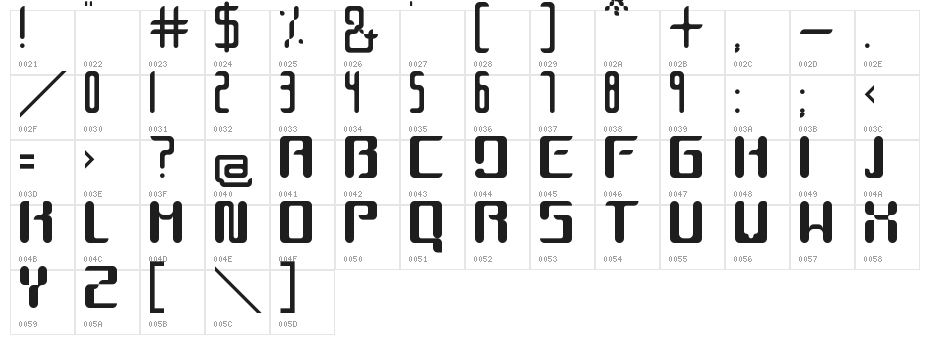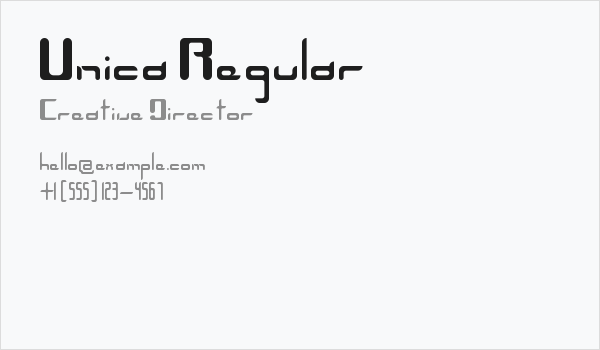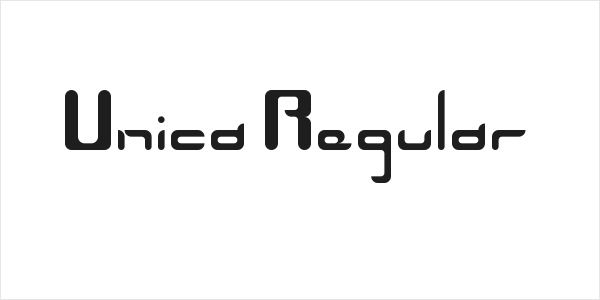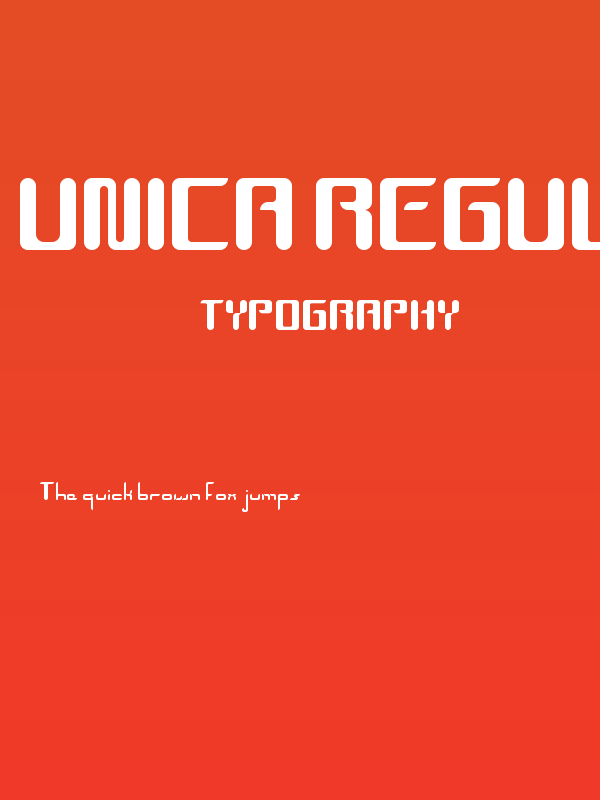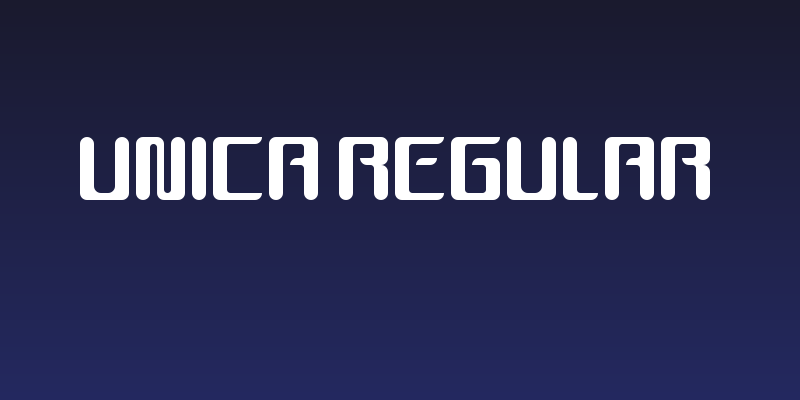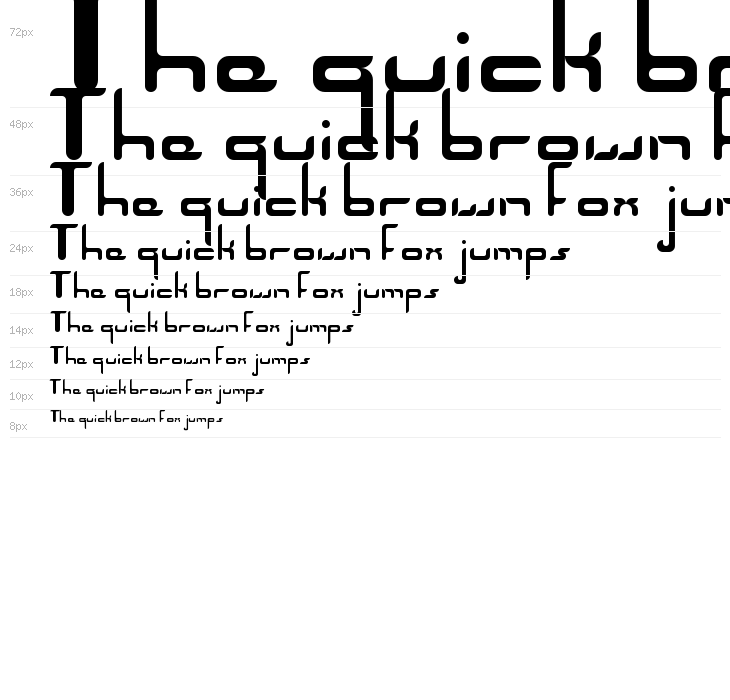
Unica Regular Font
Unica Regular Description
This font features a modern and futuristic design with a unique blend of geometric shapes and rounded edges. The uppercase letters are bold and structured, while the lowercase letters maintain a consistent style with a slightly softer appearance. The numerals are distinct and easily readable, maintaining the same geometric aesthetic. Special characters are designed to complement the overall style, adding a cohesive look to any text. The font's design is both innovative and versatile, making it suitable for a variety of creative applications.
| Use Case | Logos, Headlines, Branding |
| Proposed Projects | Ideal for technology branding, sci-fi themed projects, modern advertising, and innovative product packaging. |